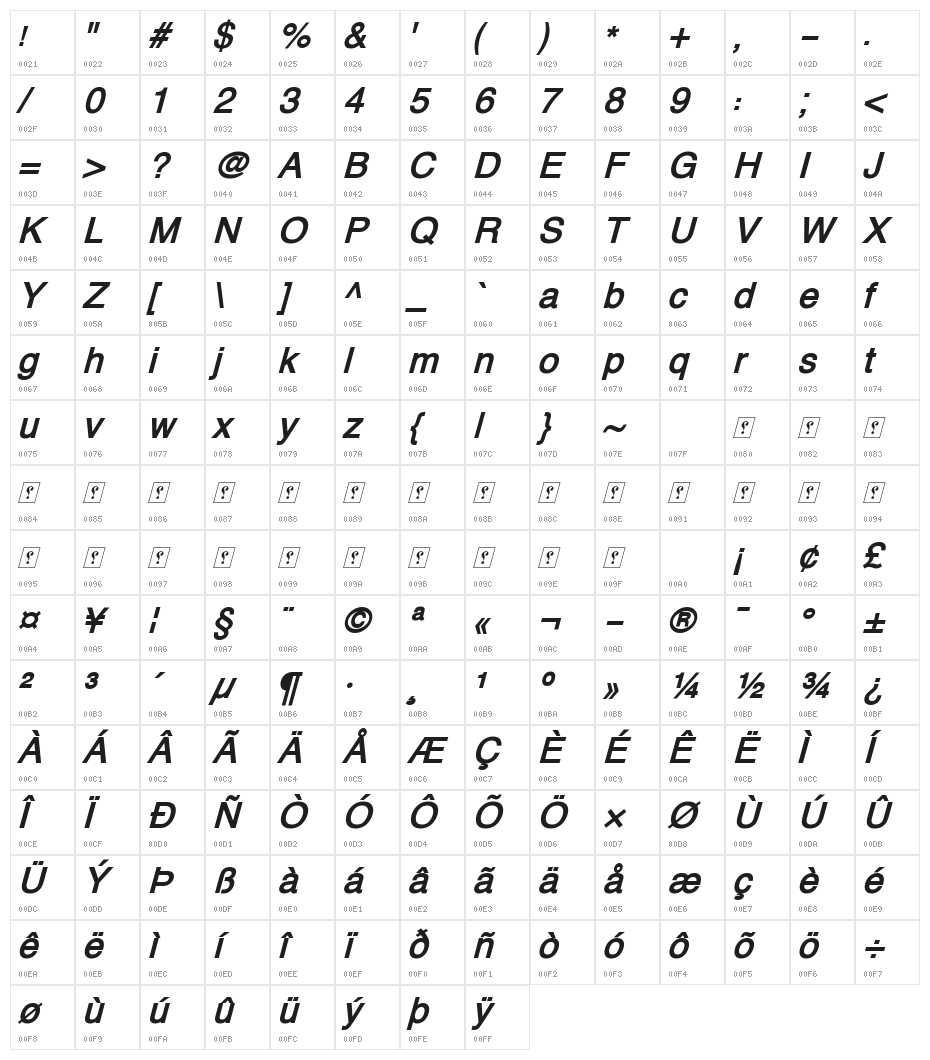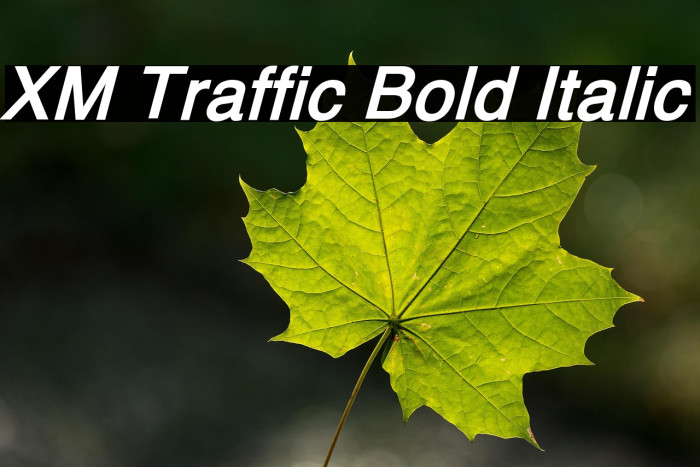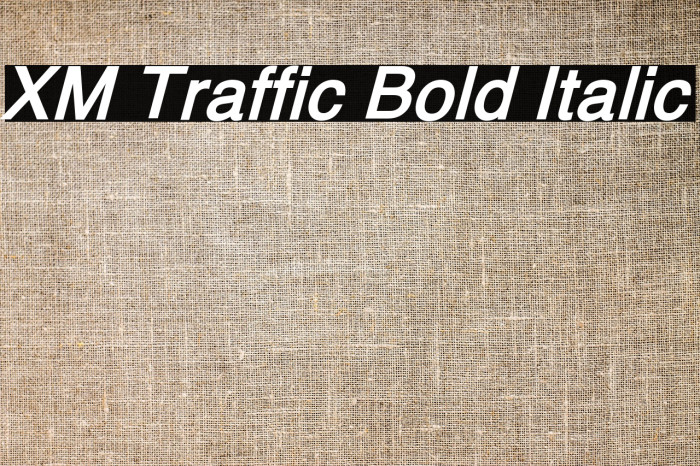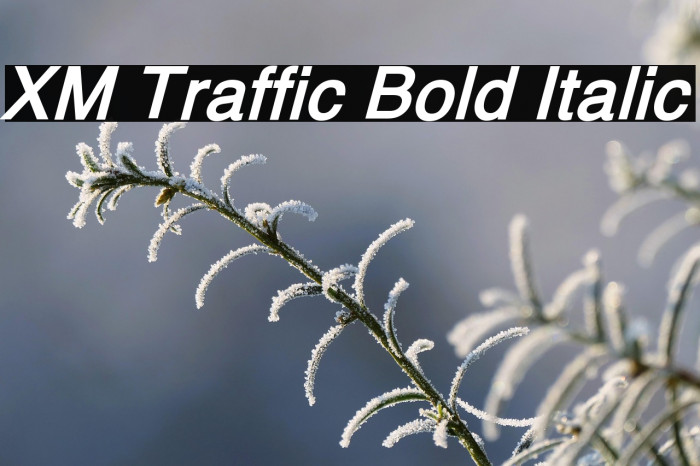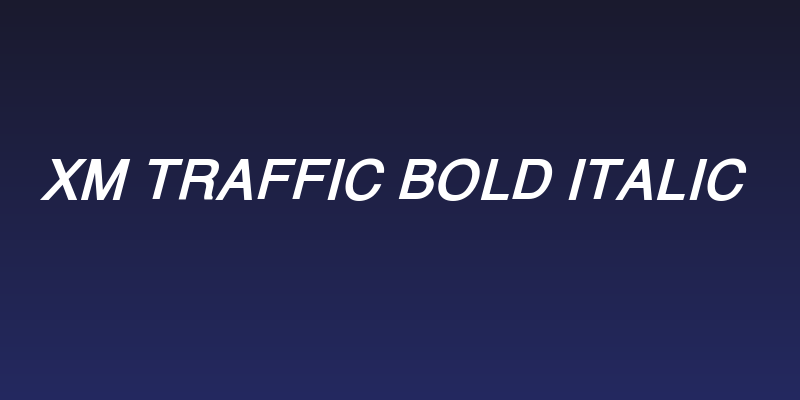
XM Traffic Bold Italic Font
XM Traffic Bold Italic Description
This font exhibits a bold and italicized style, characterized by its strong and dynamic appearance. The letters are slightly slanted, giving a sense of motion and urgency. The strokes are thick and consistent, providing a robust and confident look. The uppercase and lowercase letters maintain a uniform width, ensuring readability and balance. The numbers and special characters are designed to match the overall bold and italicized theme, making them stand out effectively. This font is suitable for projects that require a modern and assertive typeface.
| Use Case | Headlines, Logos, Signage |
| Proposed Projects | Ideal for headlines, advertising, branding, and signage where a bold statement is needed. |